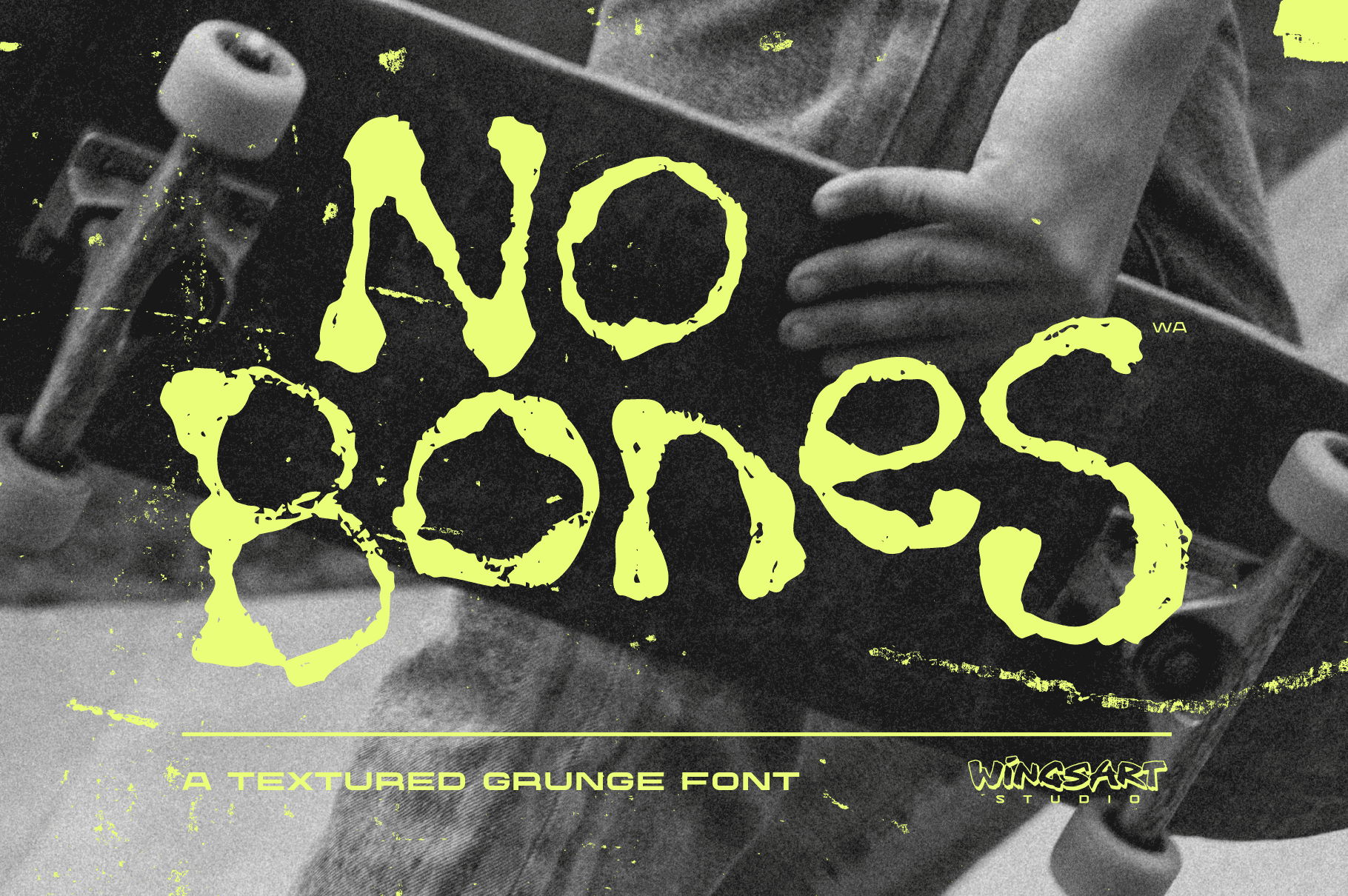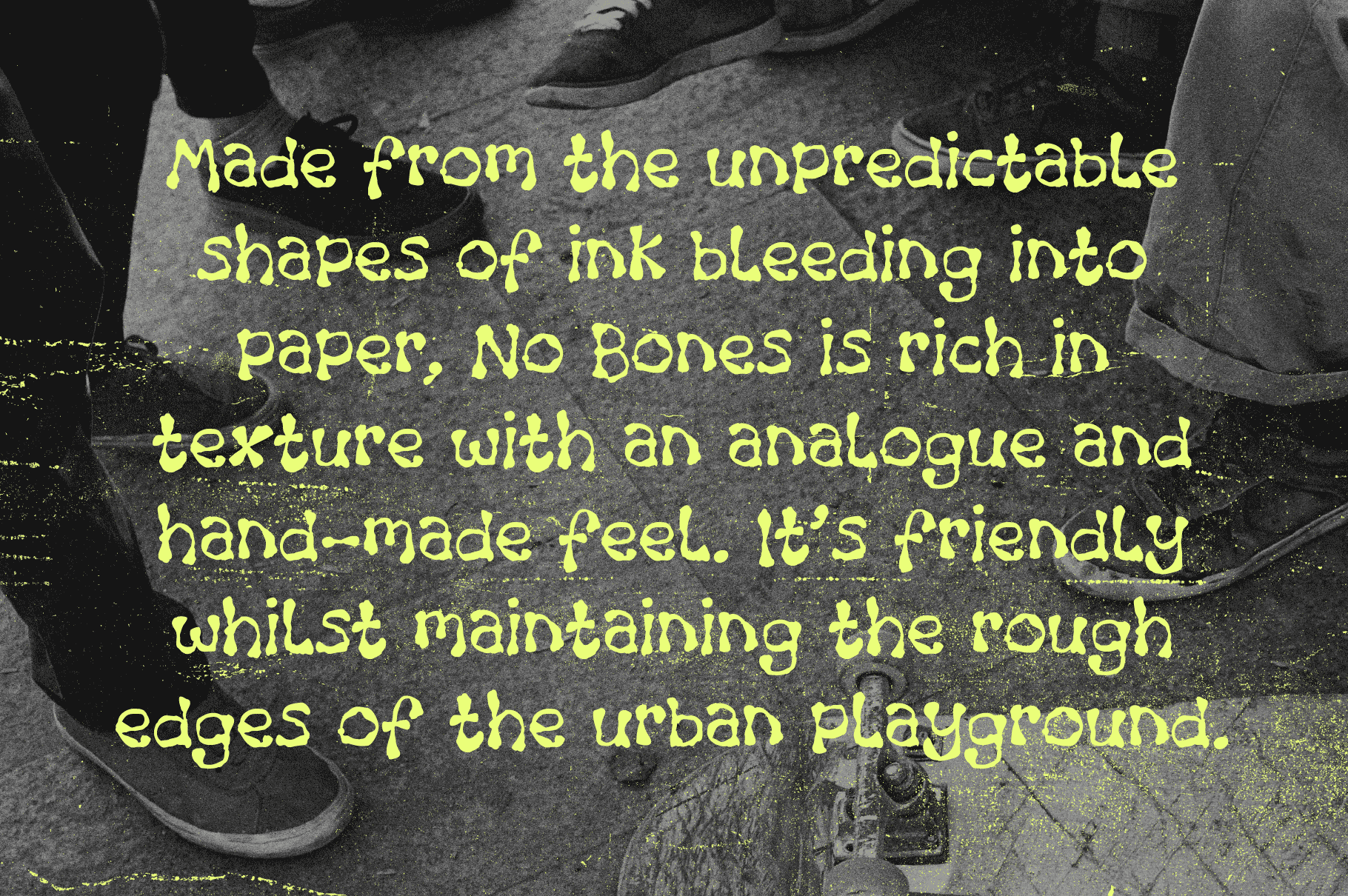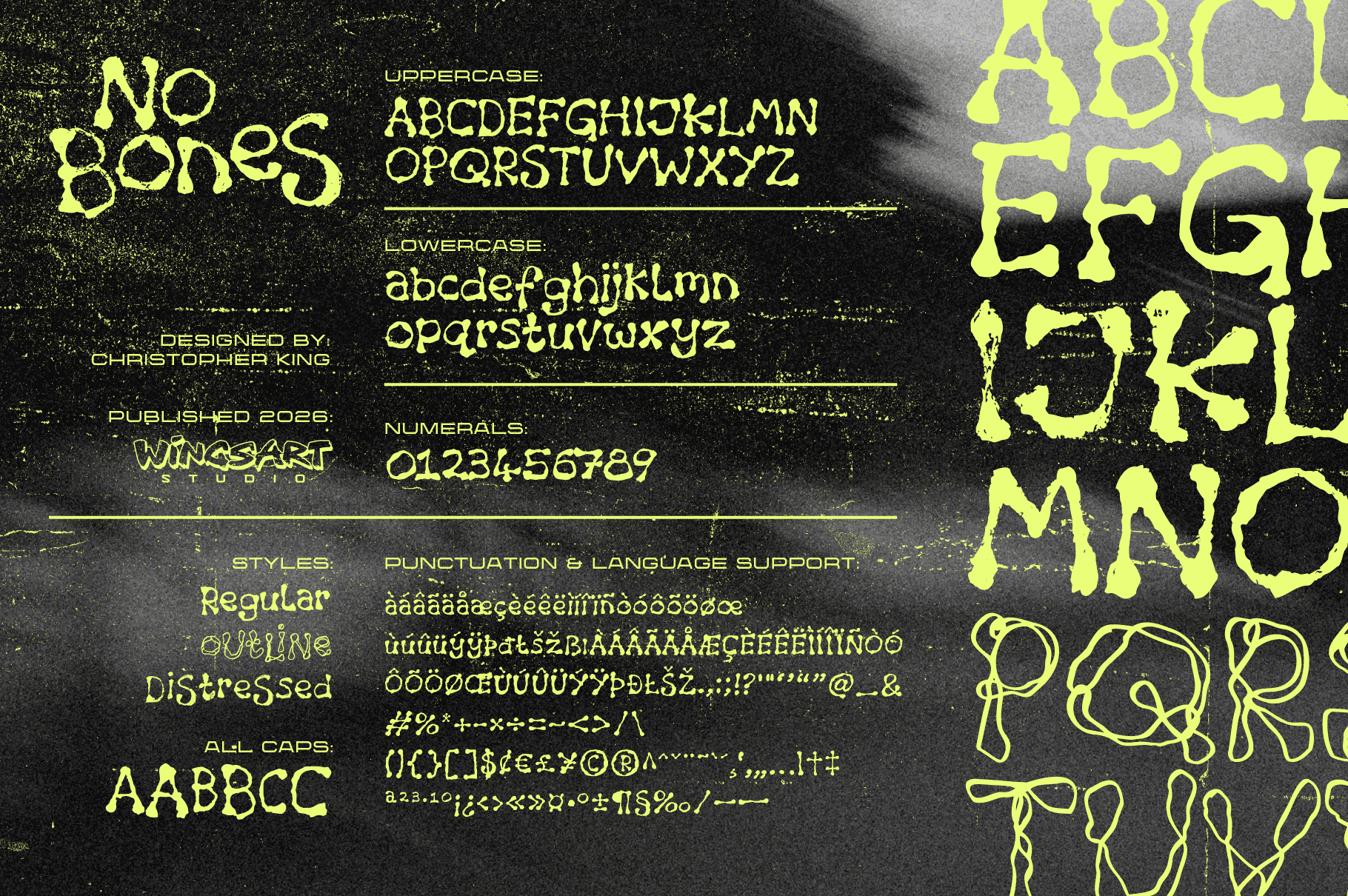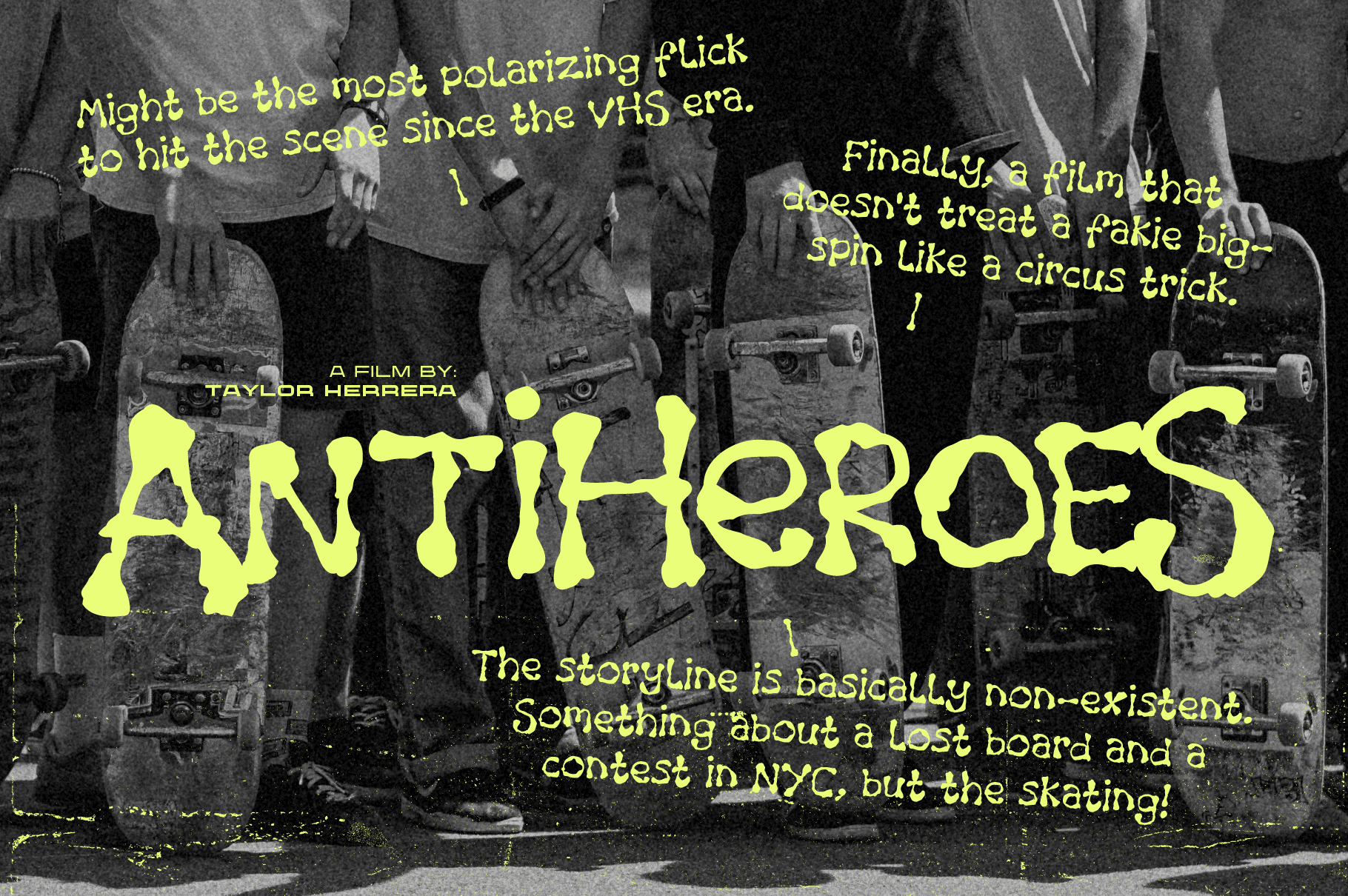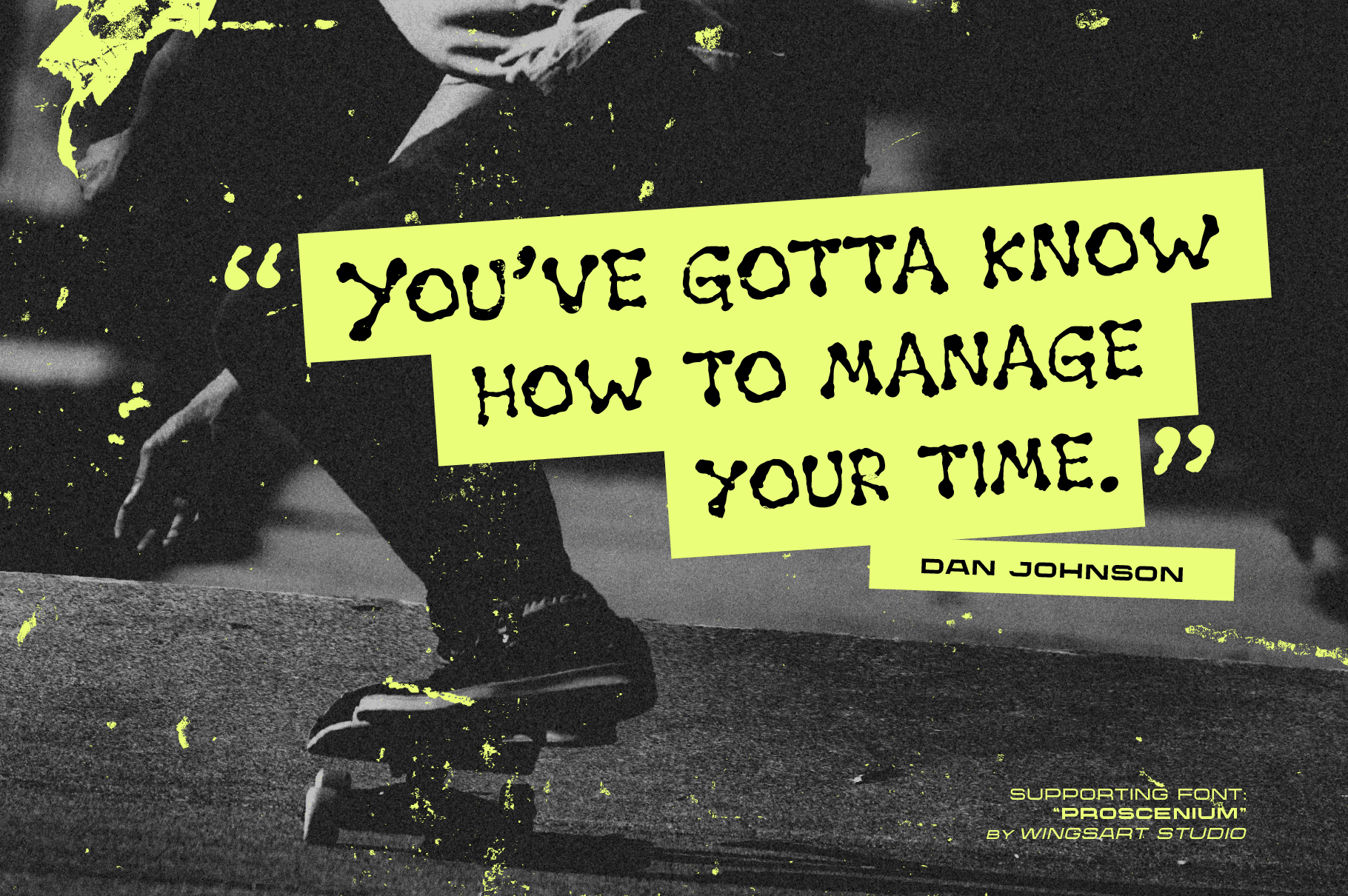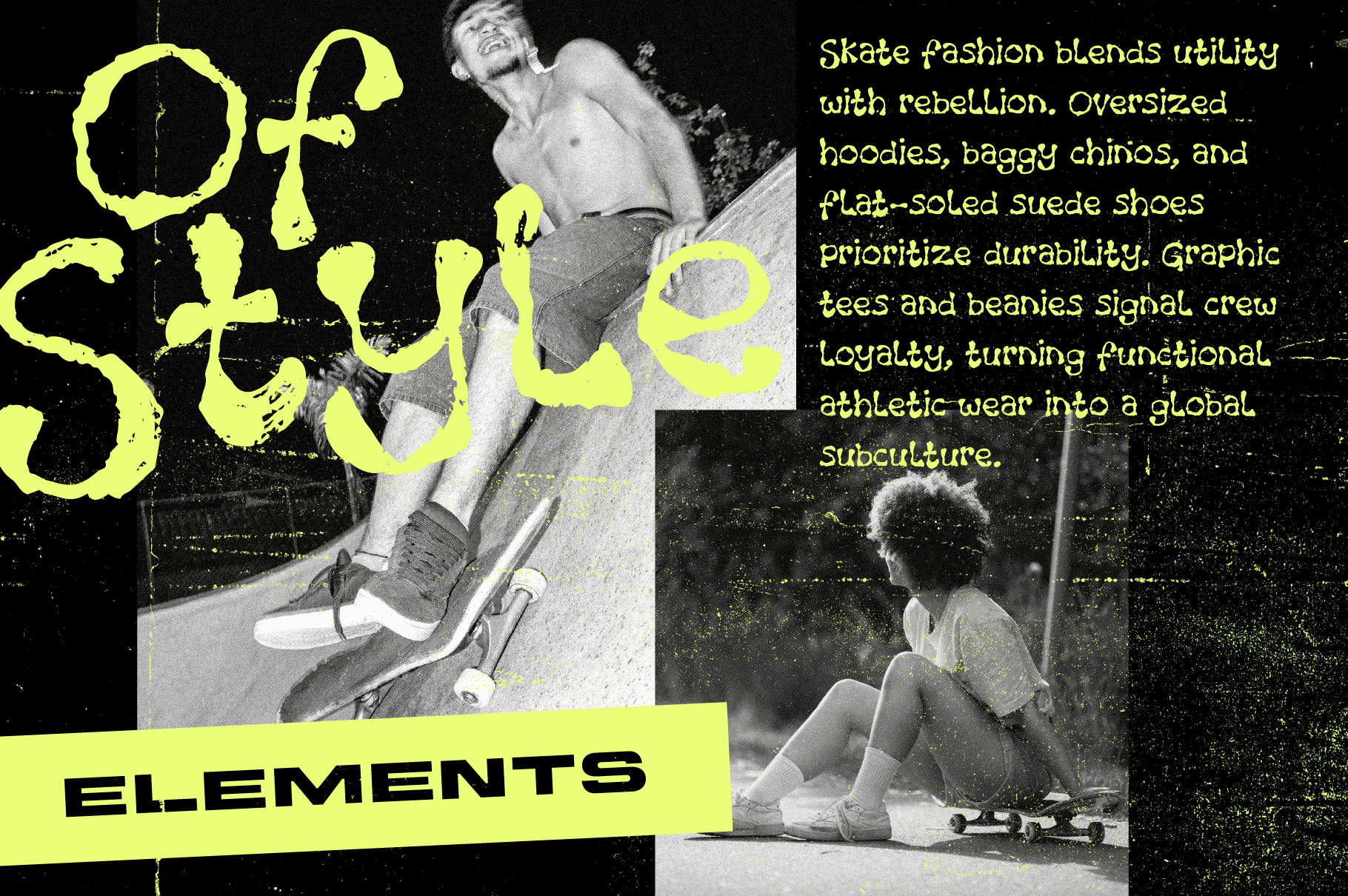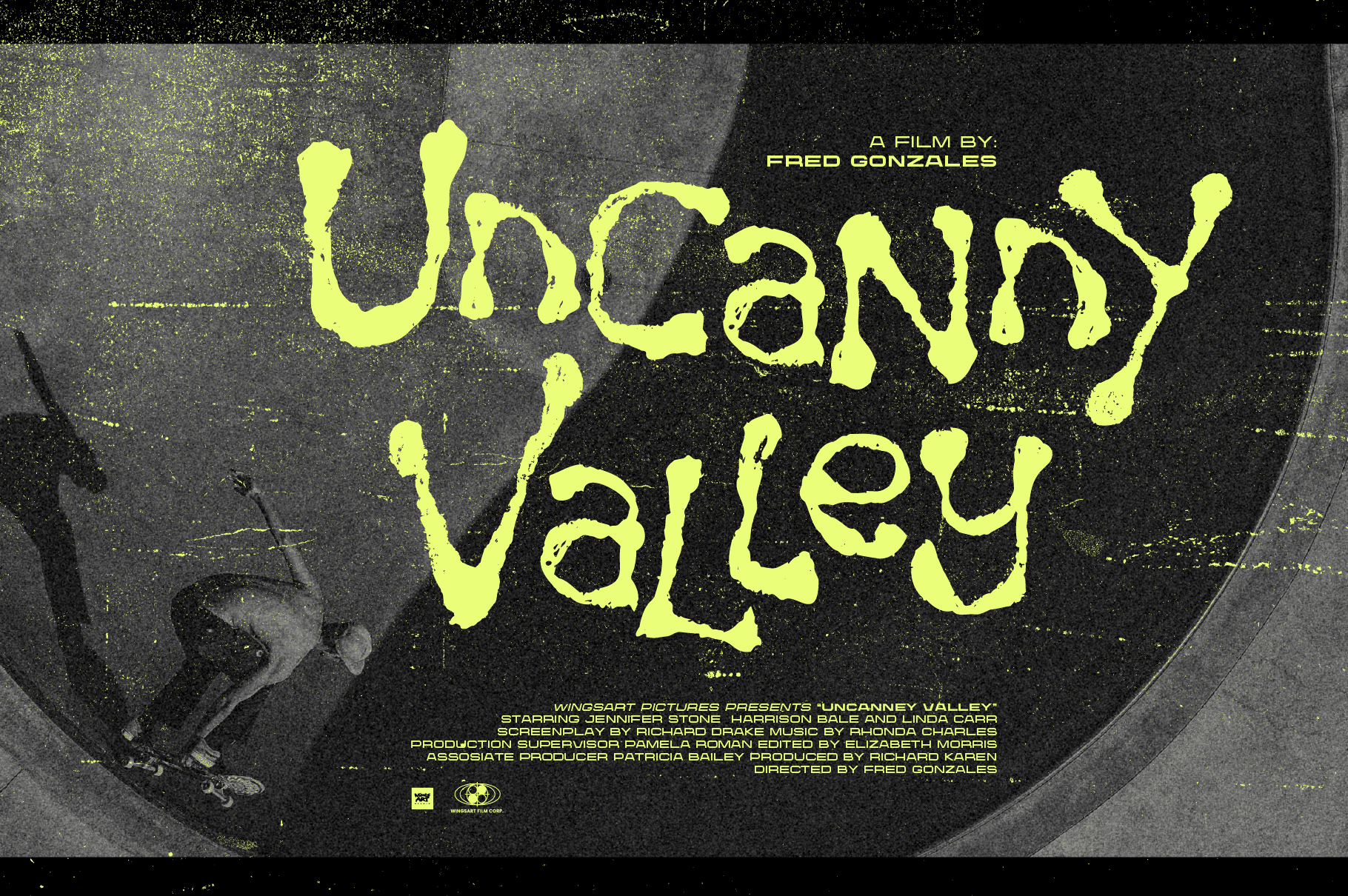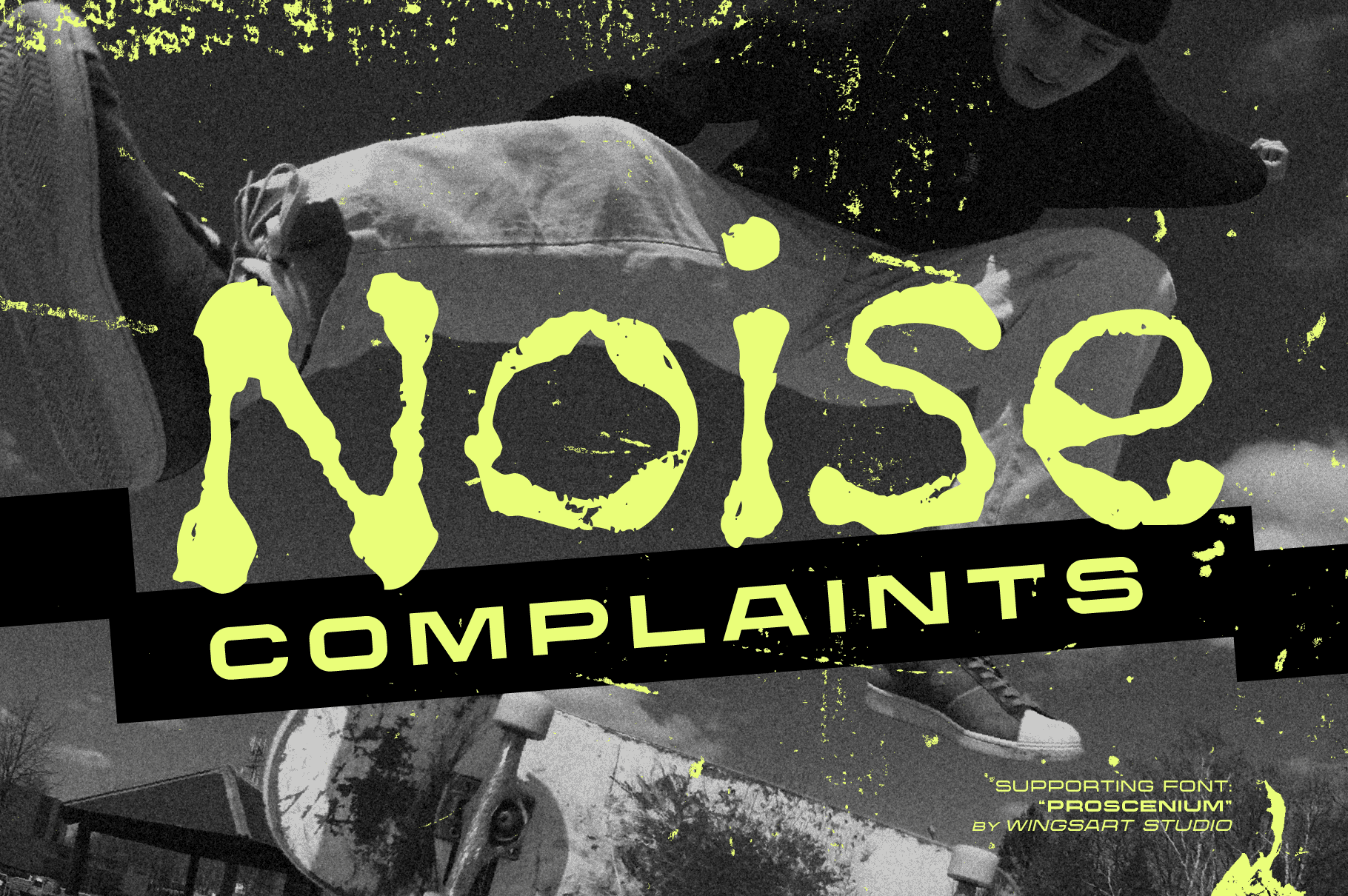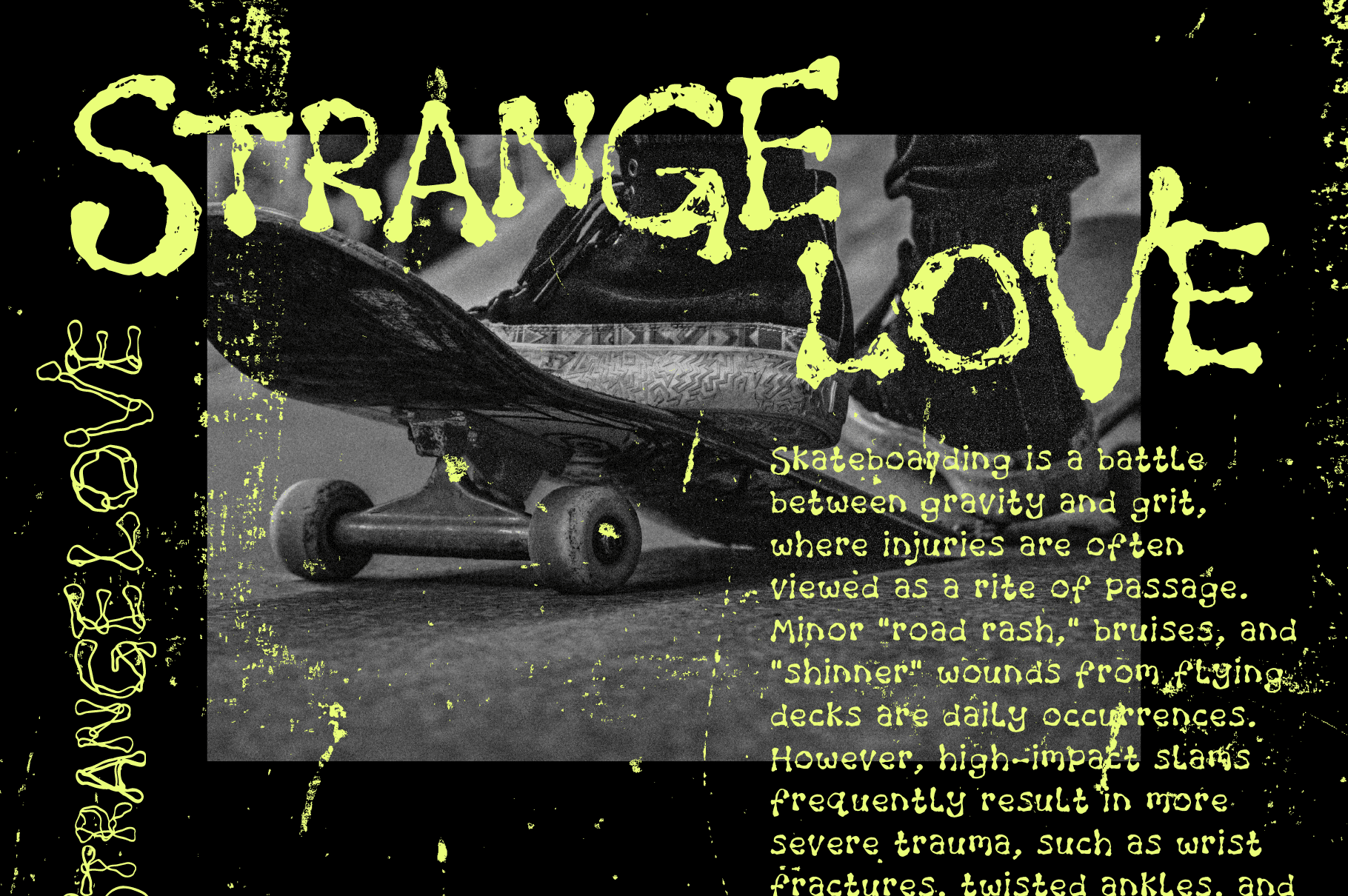
An Inky Textured Grunge Font
Made from the unpredictable shapes of ink bleeding into paper, No Bones is a display font rich in texture with an analogue and hand-made feel.
Its design was inspired by skate branding and magazine editorials, but could suit anything from children’s books to paranormal podcasts. It’s friendly whilst maintaining the rough edges of the urban playground.
The No Bones font family comes with uppercase and lowercase characters, along with an all-caps alternative, all including numerals, symbols, punctuation, and language support.
Try it on headers and titles that need a certain punk attitude, like fanzines or gig flyers, and embrace the imperfect, inky textures that feel like you’ve got your hands dirty. Enjoy!
- Regular
- Distressed
- Outline
- Regular All-Caps
- Distressed All-Caps
- Outline All-Caps